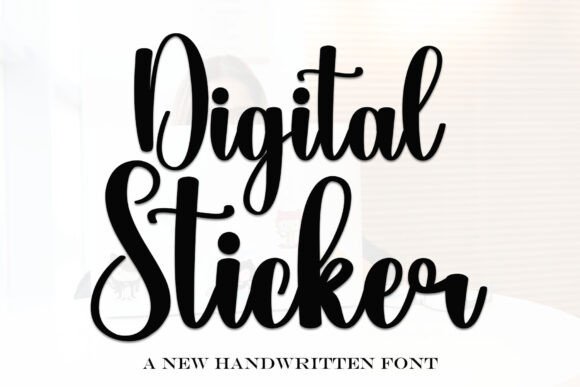
Introducing Digital Sticker Font: The Perfect Holiday Typeface
The holiday season is upon us, and what better way to get into the spirit than with a festive and happy typeface? Look no further than the Digital Sticker Font, a decorative and charming font that’s perfect for all your holiday-themed projects. In this article, we’ll take a closer look at what makes this font so special and how you can use it to add a touch of cheer to your designs.
What is Digital Sticker Font?
Digital Sticker Font is a unique and festive typeface that captures the spirit of the holiday season. With its decorative elements and unique flair, it’s the perfect addition to any holiday-themed project. Whether you’re designing greeting cards, gift labels, or festive posters, this font is sure to bring a cheerful and nostalgic atmosphere to your words.
Perfect for Holiday Designs
Digital Sticker Font is specifically designed with the holiday season in mind. Its decorative elements and festive flair make it perfect for a variety of design uses, including:
- Greeting cards: Add a personal touch to your holiday greeting cards with this charming font.
- Gift labels: Make your gifts stand out with festive and decorative labels.
- Holiday-themed projects: From festive posters to holiday-themed social media graphics, this font is perfect for any project that needs a touch of holiday cheer.
What Makes Digital Sticker Font So Special?
So, what sets Digital Sticker Font apart from other fonts? Here are just a few benefits of using this amazing typeface:
- Decorative elements: The font features decorative elements that add a touch of charm and festivity to your designs.
- Unique flair: The font has a unique flair that sets it apart from other typefaces and adds a touch of personality to your designs.
- Cheerful and nostalgic atmosphere: The font brings a cheerful and nostalgic atmosphere to your words, perfect for capturing the spirit of the holiday season.
Tips and Tricks for Using Digital Sticker Font
Here are a few tips and tricks for getting the most out of Digital Sticker Font:
- Experiment with different sizes: The font looks great in a variety of sizes, so don’t be afraid to experiment and find the perfect size for your design.
- Pair with other fonts: Digital Sticker Font pairs well with other fonts, so try combining it with a sans-serif font for a fun and festive look.